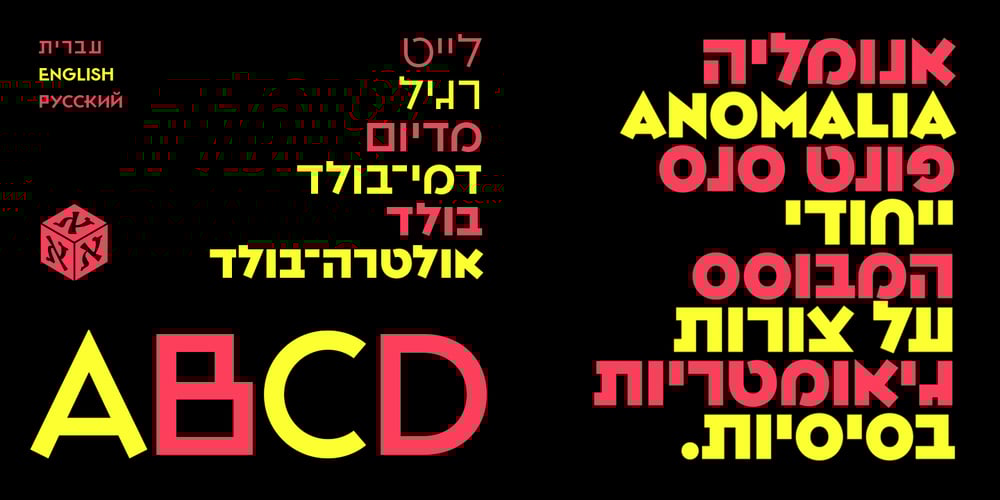
Anomalia Font Family was designed by Avraham Cornfeld and published by AlefAlefAlef. Anomalia contains 6 styles and family package options. Anomalia is an eccentric & geometric trilingual typeface (Latin, Cyrillic and Hebrew). It contains many glyphs and fully supports 229 Latin and Cyrillic languages – which makes it an ideal font for the side-by-side use of Latin/Cyrillic and Hebrew characters. Cyrillic design by Anna Khorash.